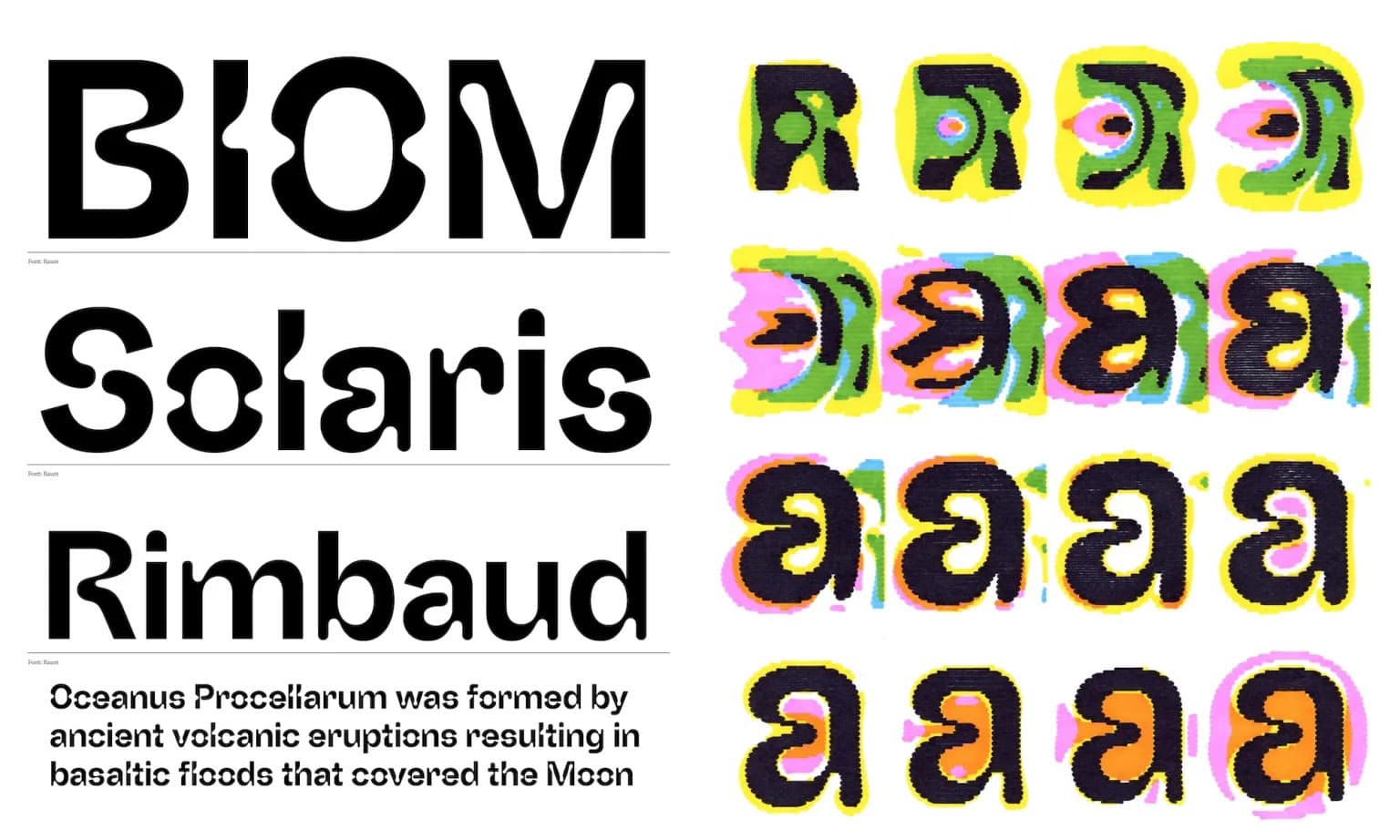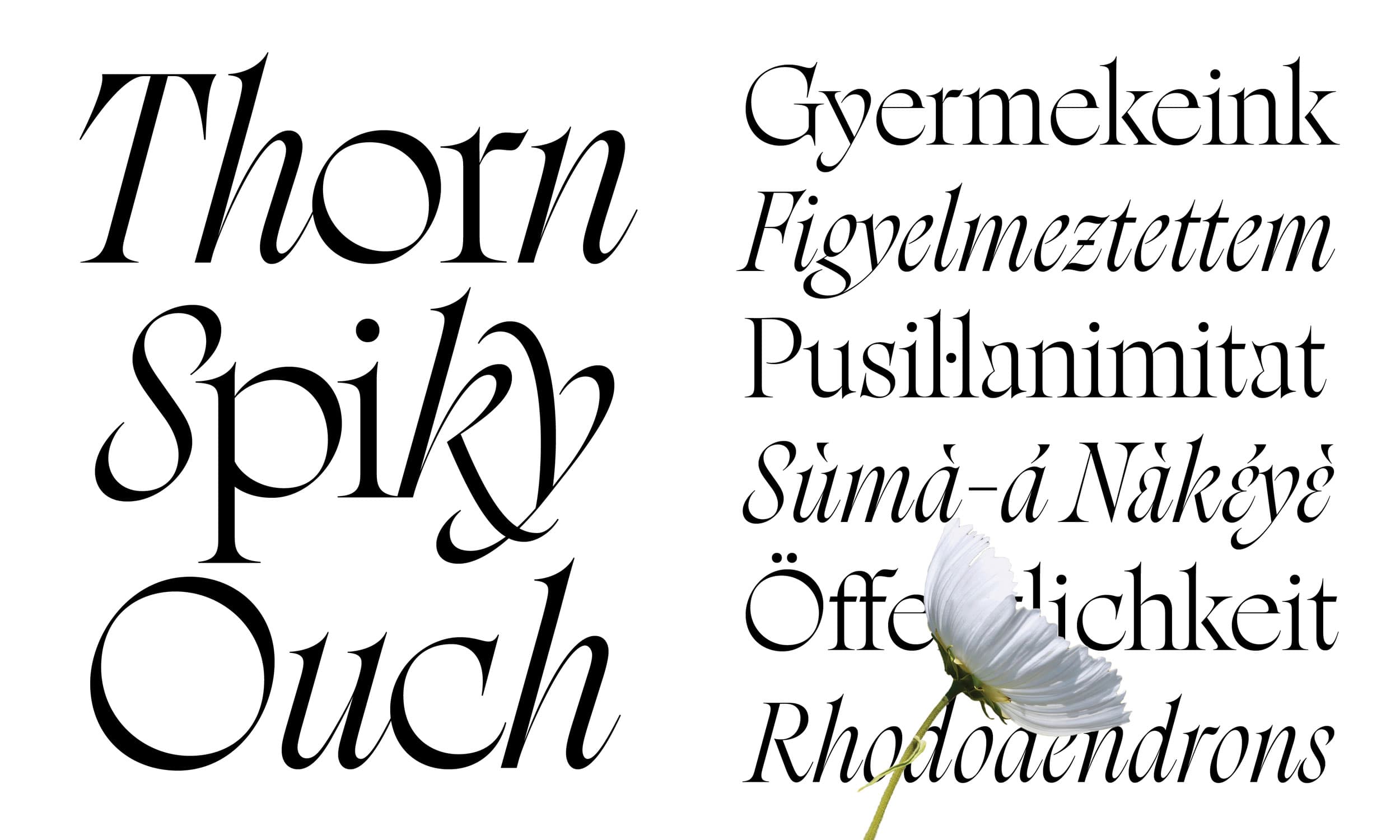
Inside Sharp Type’s Experimental Year: 18 Fonts and an Energized Team
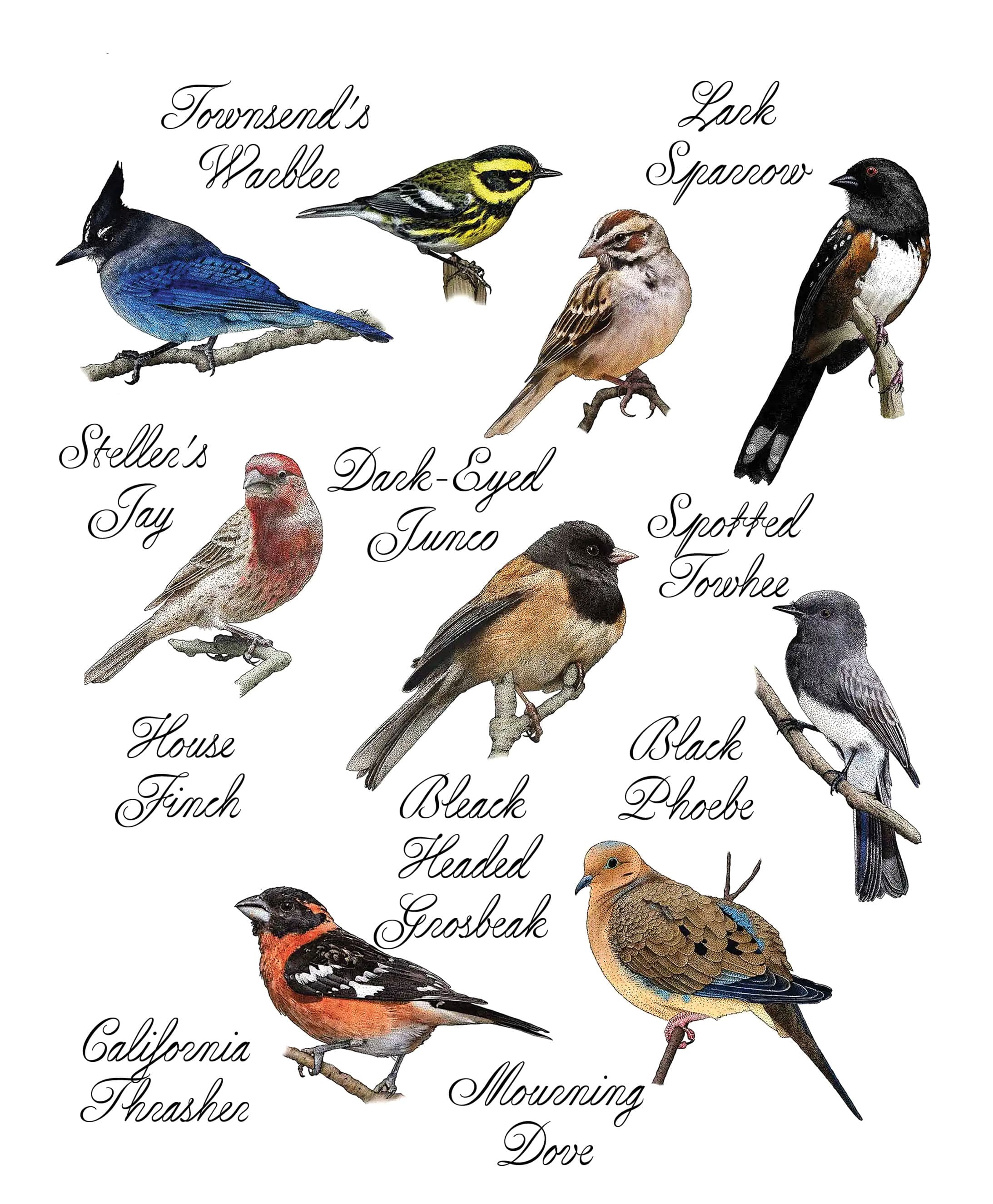
When I spoke to Sharp Type’s co-founders, Chantra Malee and Lucas Sharp, a little over a year ago, the indie foundry was embarking on an adventure of sorts. Officially, Sharp Type was celebrating the parallel launch of a new website and “Season Two” of the retail type catalog. Candidly, the team was seeking more dynamism amidst the churn of client projects, a creative challenge of sorts—more play in the process. Dynamism, they got. Over 18 energetically-charged months, the Sharp team has released new fonts at a clip of one each month.
I was curious about the team’s experience over the last year, so I sat back down with Sharp and Malee.
Sharp admits it has been an intense release schedule. “We put out more fonts this year than we had in the previous decade,” said Sharp. “I’ve felt, and I think if you talked to members of our team, the consensus is that we’re super energized. We’re excited to be creating in this fluid environment. It’s built momentum. With client work coming in, too, we’re in this fast-paced cycle of ideating, creating, and drawing. And that’s been wonderful.”
Malee and Sharp both agree that the playful energy of this experimental year stems from working with new talent across the globe. “We weren’t sure how the industry would take the shooting off of Season One,” said Malee. “But we’ve had so much support, and have met so much new and incredible talent around the world. Many people said, ‘Let’s work together,’ and that’s why we were able to be so productive. We’re so lucky to work with the talent we have.” They have tried to build Sharp Type into a platform, said Sharp. “A big part of Season Two’s success has been our ability to collaborate with free-floating talent,” he continued. “We’ve been able to scale our esoteric design knowledge while helping ease the challenges of being a designer just starting out.”
Since we last talked, the couple relocated their family from the Bay Area to Rhode Island. Sharp grew up on the West Coast, but it was always a part of their long-term plan to move back to Malee’s hometown to establish roots for their family. With many clients in New York and Europe and a far-flung team, the move also made strategic business sense. Team Sharp’s new digs and community have proven generative and creatively expansive, attested by the company retreat in the archives at Newport’s The Redwood Library and Athenaeum, detailed in this feature in Monocle. The foundry is deep in an ongoing project with a centuries-old stone carving studio in Newport, due to be released in 2026. (More on that in a later column.)
As many conversations of this current moment do, ours veered into AI. While there are significant and potentially dystopian shifts in the market due to AI, Sharp and Malee are both heartened by the need for creative people who know how to see and speak the language, who know how to prompt, and who know why an artifact of type is good or not. “A core functionality of a craftsperson is taste,” said Sharp. “That is irreplaceable.” Sure, AI will do the thing. But AI won’t ever replace the particular combination of knowledge, experience, and the frame of the actual human who is wielding it.
“The competition to create compelling work will always be fierce,” said Sharp. “But the landscape is always shifting under our feet, so then it becomes about who is nimble and can adapt in that environment.” Perhaps ironically, being adaptable in this kind of landscape gets increasingly more fundamental: going back to basics. The playing field isn’t about tools. It’s about mindset—a way of seeing and thinking and a focus on the craft. “In a way,” Malee said, “we may be looking at a new renaissance, because it’s becoming a race to authenticity.”
The best shops and craftspeople are just chipping away at their block. And that produces the best work.
- Lucas Sharp
Sharp compares what’s happening to the idea of creativity in the age of AI to the sea change in agriculture to the flattened industrial version we saw in the 20th century. Yes, it’s economical, efficient, and scalable, but is it actually good? “It took generations for us to get here, and now everyone we know is a homesteader.” It’s an energetic principle, Sharp says. “People are not going to want to put just anything on their walls, just like they don’t want to put just anything in their stomachs. They are going to want something created by someone, something that feels tangible.”
For a digital typeface foundry, it’s a beautiful thing that so much of the exploration has been in the archives, in the handmade. You’ll see this craft ethos throughout the team’s favorite typeface releases of the past year.
Sharp Serif
Sharp Serif pays homage to the 15th-century Italian and French Renaissance. It is classic in form, with modern refinement, making the serif typeface as beautiful as it is accessible. Sharp Serif Display takes a more radical optical approach, where stencil-inspired constructivist shapes meet the grace of the high contrast serif.
What began as Sharp’s exploration of utilitarian forms (it’s his third serif typeface) is now a centerpiece of the catalog and a lasting contribution to modern typographic style. There’s much more to his process, and the influences and historical threads he followed. Read about it here.
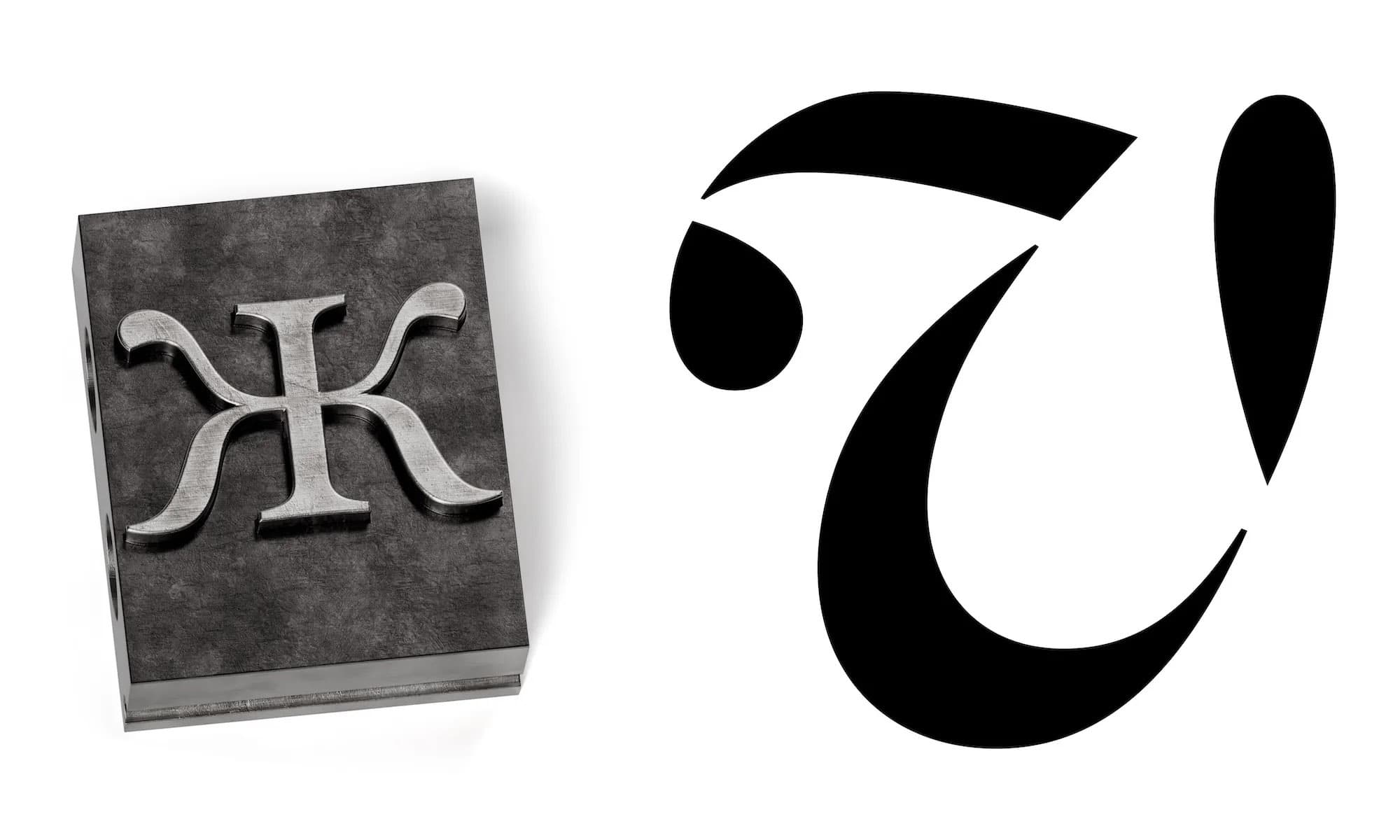
It may not be my last, but Sharp Serif is my best attempt thus far to contribute to the most noble of all typographic genres.
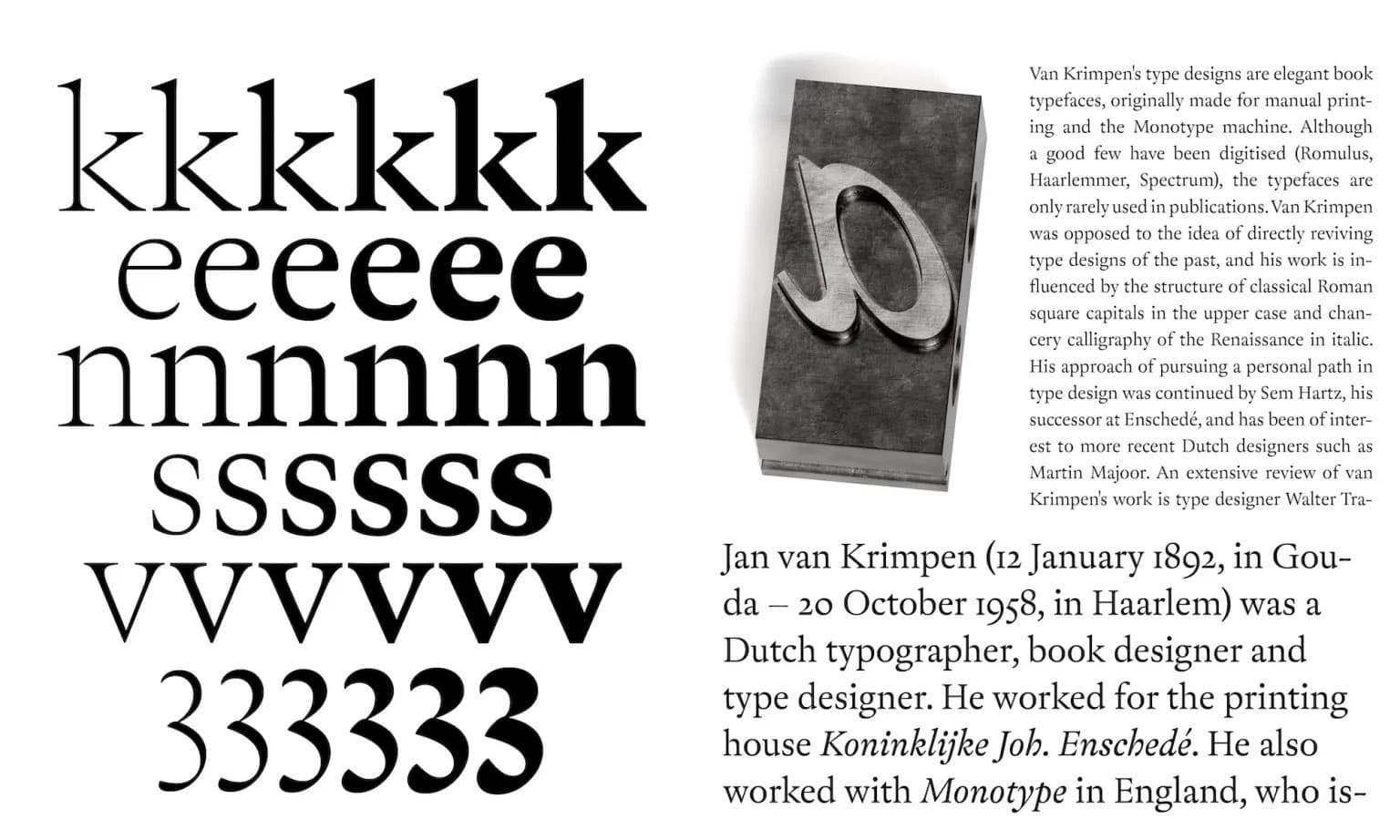
Hauss & Raum
Designed by Justin Sloane & Huw Williams, Hauss & Raum are paired sans-serif and display typefaces that play together in extremes: from utilitarian to experimental.
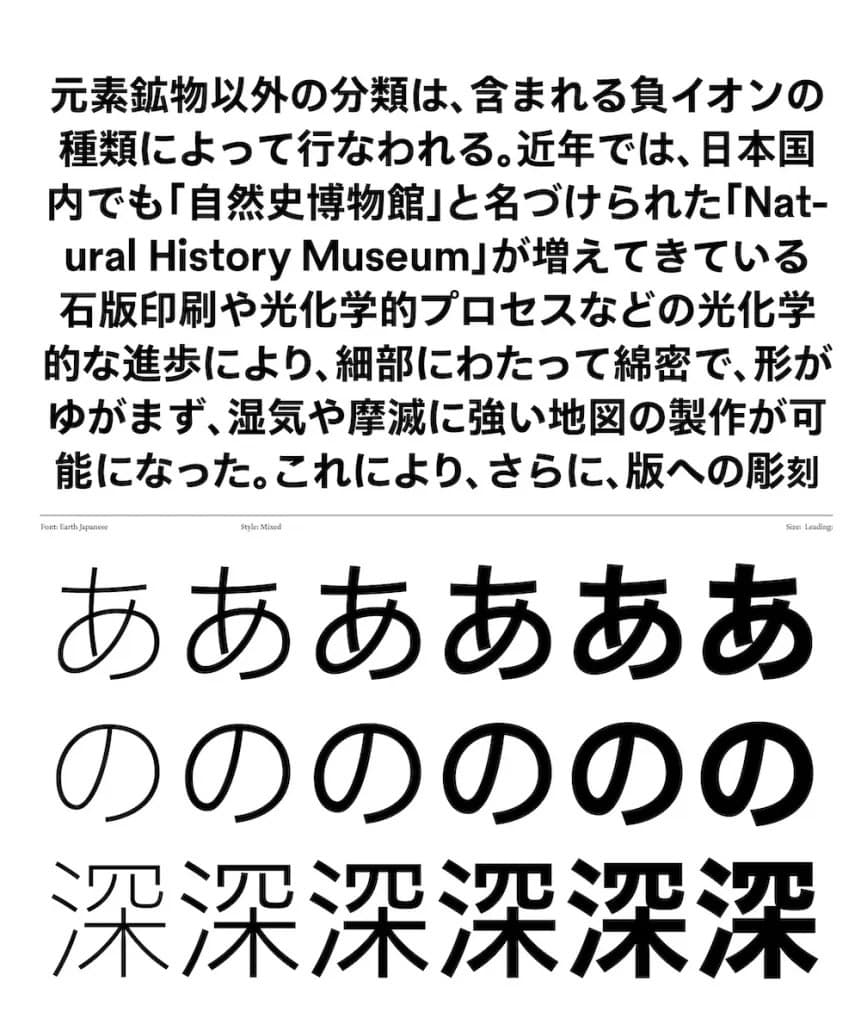
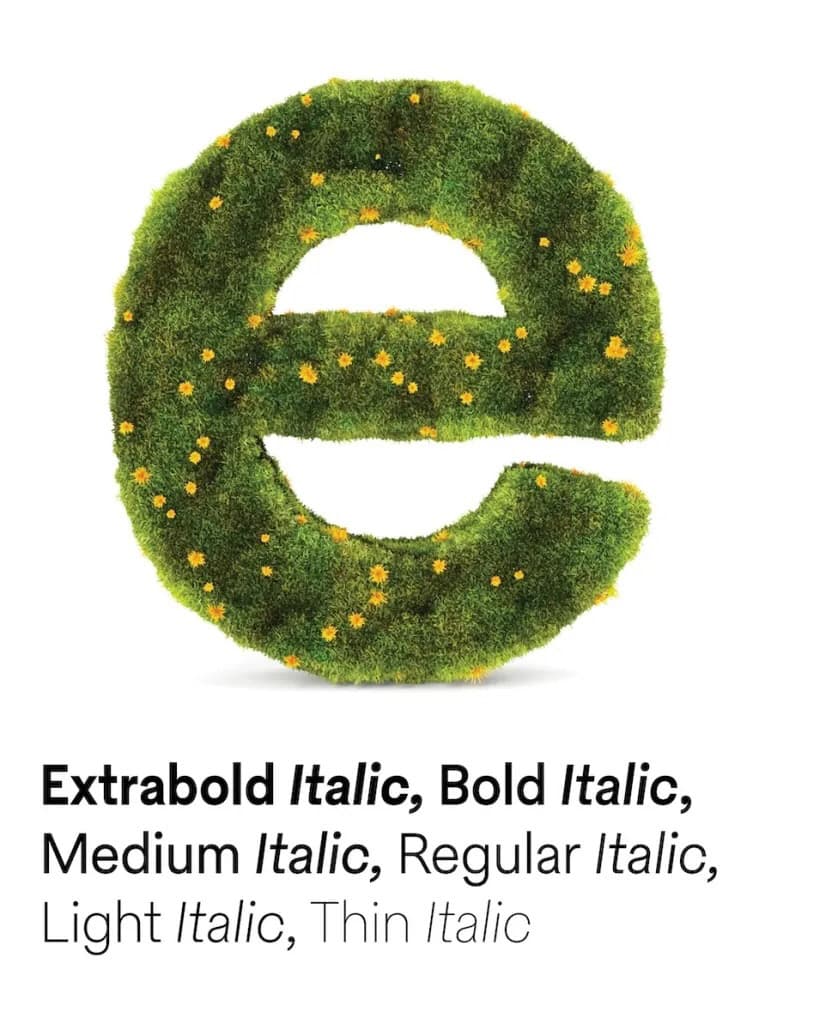
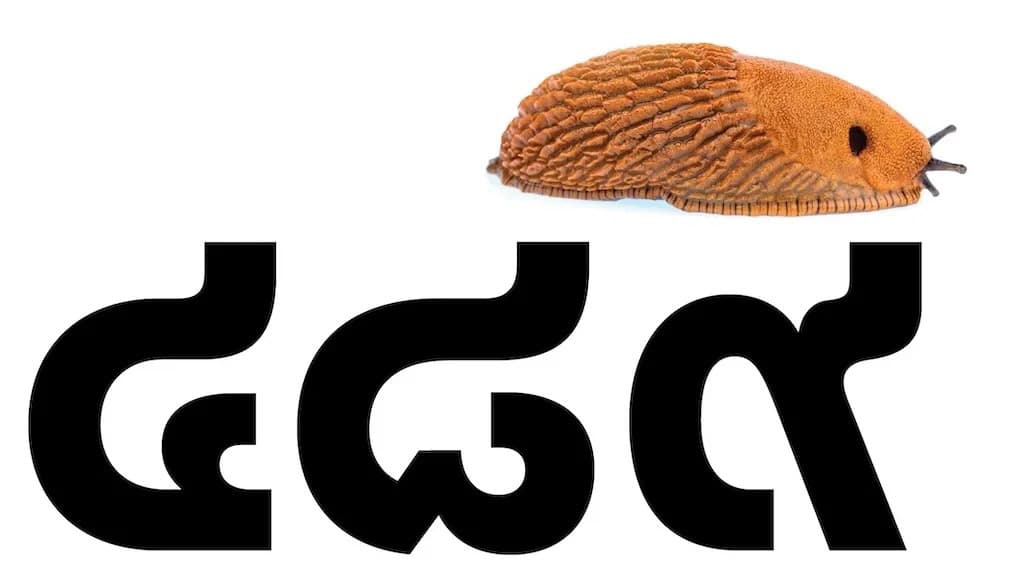
Sharp Earth blends disparate sans serif traditions into a forward-looking aesthetic.